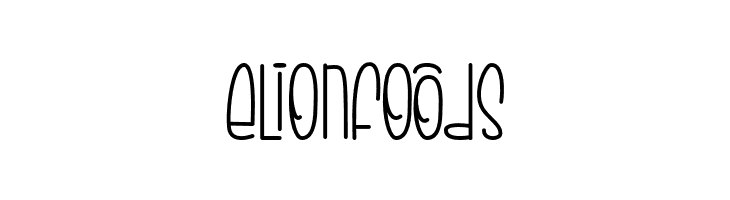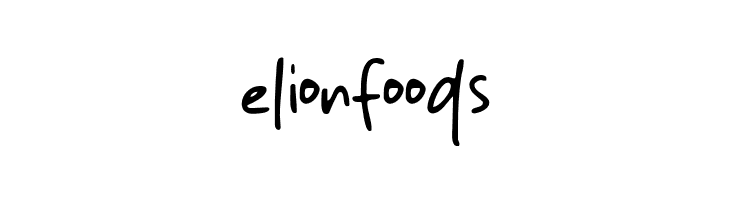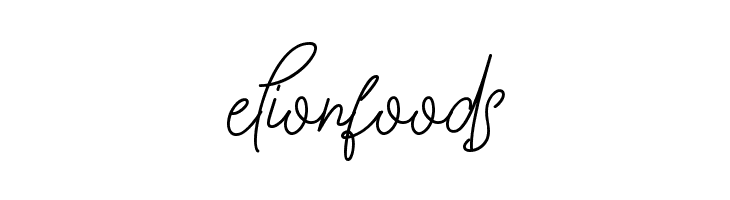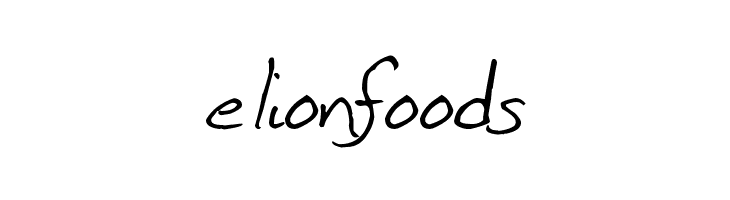
( Fonts by Maulana Creative )
A modern, elegant script font with flowing, connected characters.
( Fonts by STS Lifestyle )
Elegant cursive script with a handwritten style.
( Fonts by Alpaprana Studio )
A tall, narrow, and playful font with consistent stroke width.
( Fonts by Kurniawan Eko )
Elegant script font with a handwritten style.
( www.flyingpens.com )
A dynamic, ink-inspired handwritten font with expressive strokes.
( Fonts by Origin Type )
A playful, casual handwritten font with smooth, flowing lines.